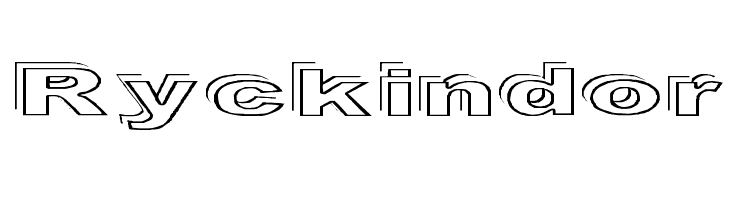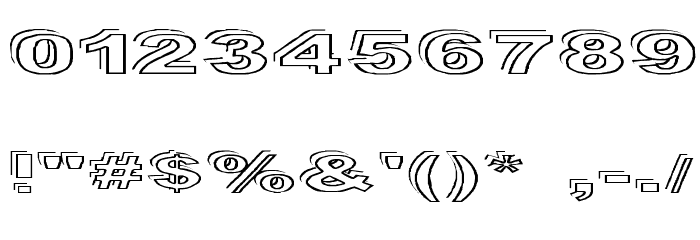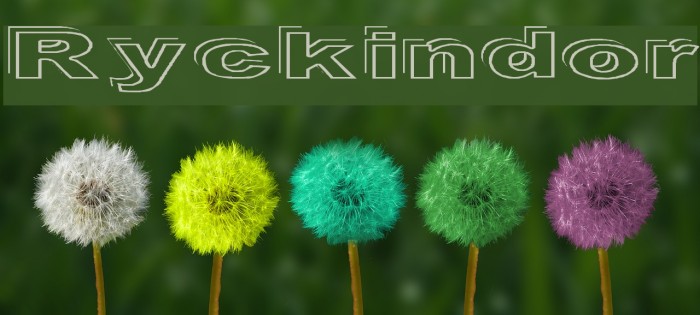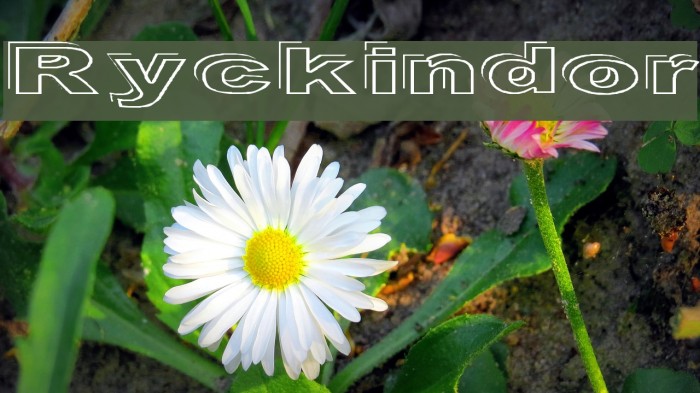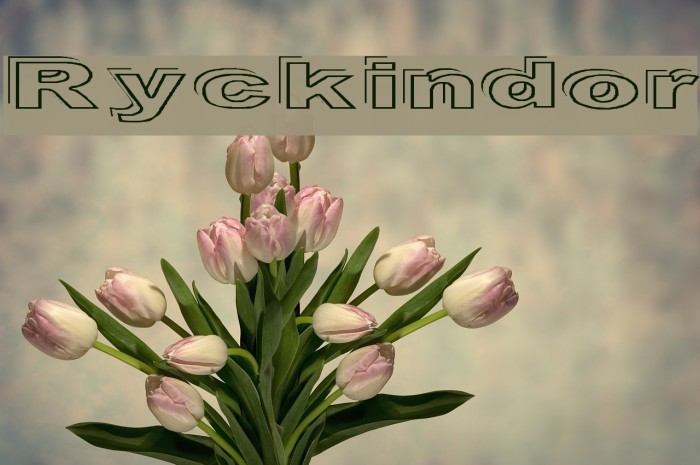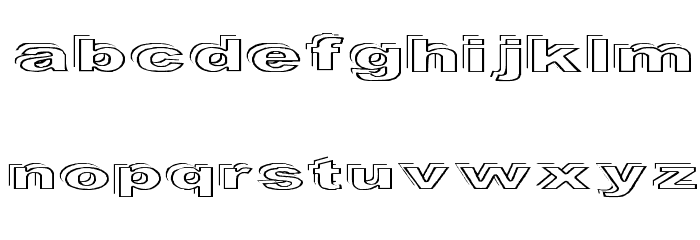
Ryckindor Font
Ryckindor Description
This font features a bold, outlined style with a modern and impactful appearance. The uppercase and lowercase letters maintain a consistent width, giving a uniform look across all characters. The numbers and special characters are designed to match the boldness of the letters, ensuring a cohesive visual experience. The font's structure is clean and geometric, with sharp angles and straight lines that contribute to its contemporary feel. The outlined nature of the font adds a layer of depth, making it suitable for designs that require a standout, eye-catching element.
| Proposed Projects | Ideal for headlines, posters, logos, and branding materials that require a bold and modern look. |